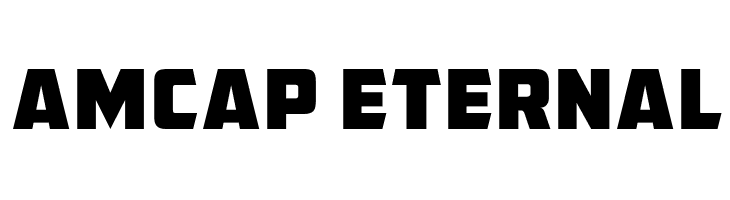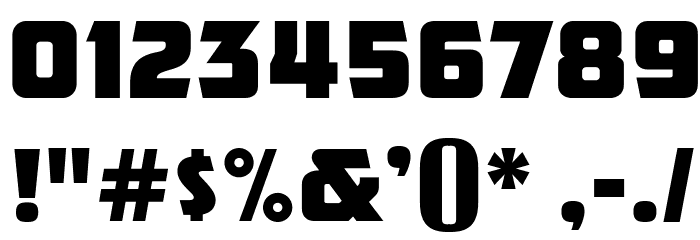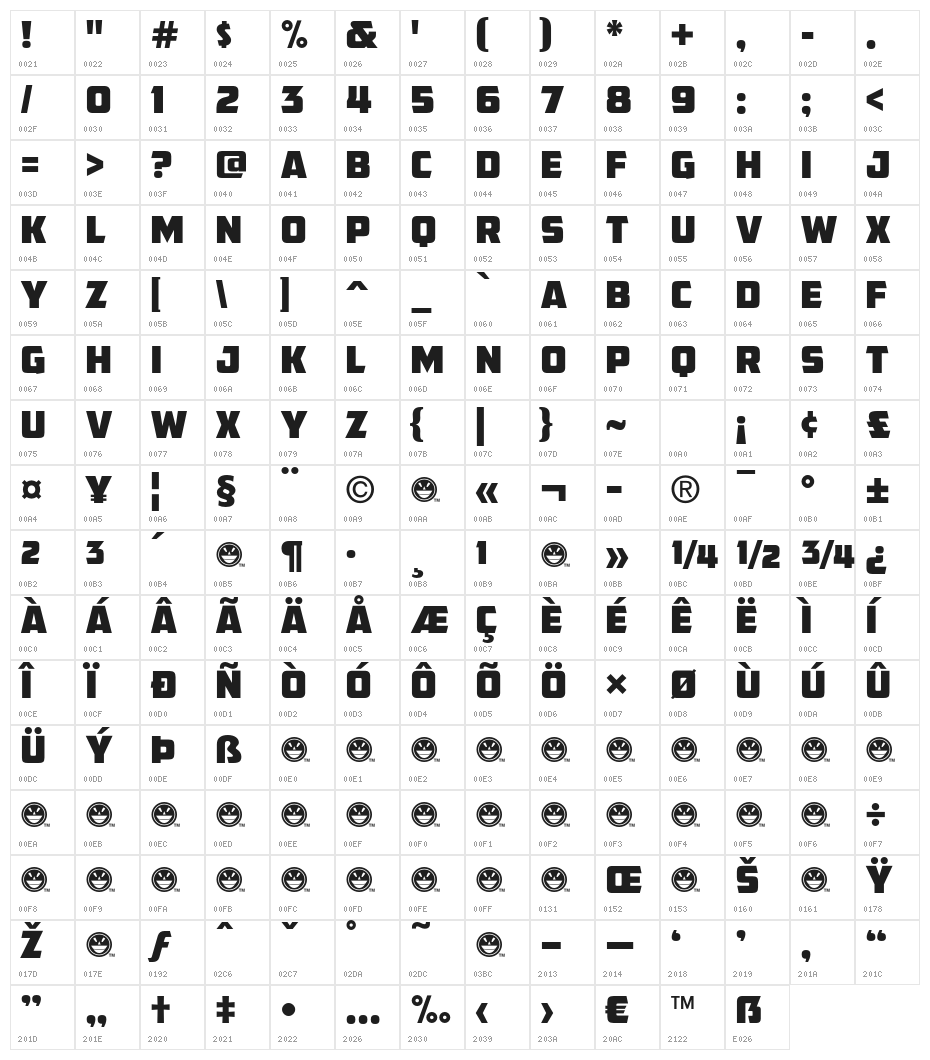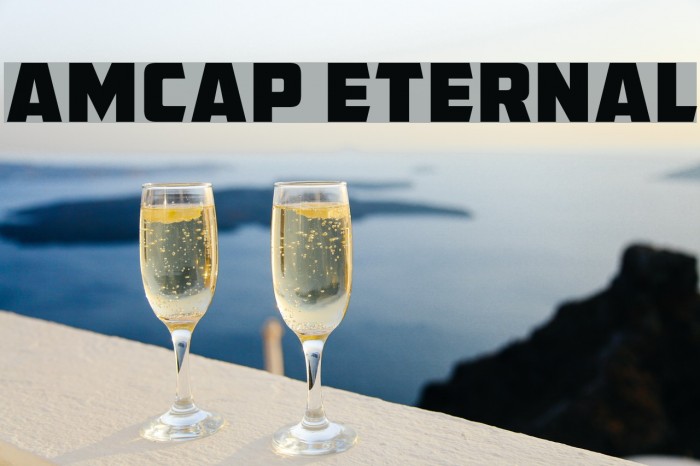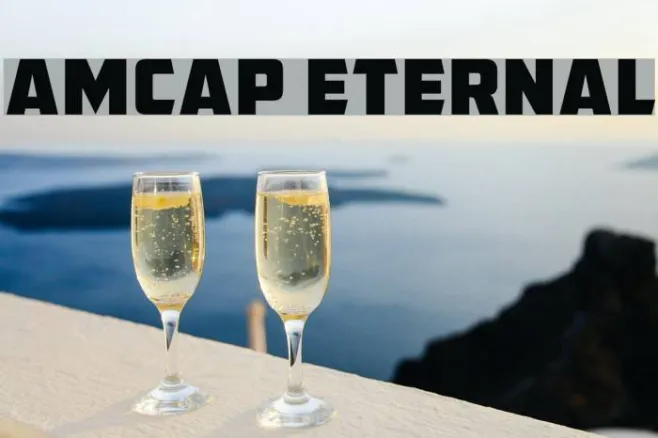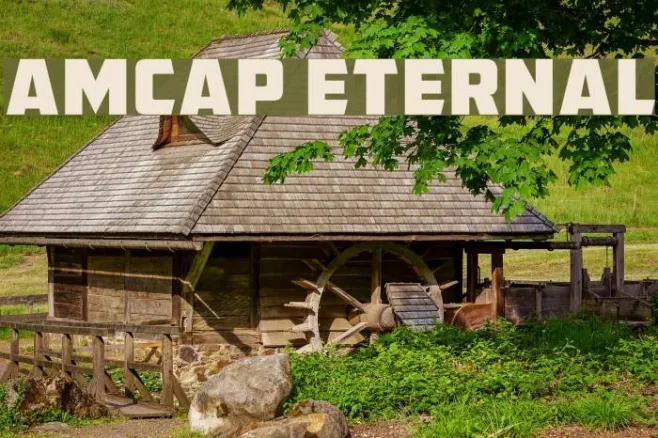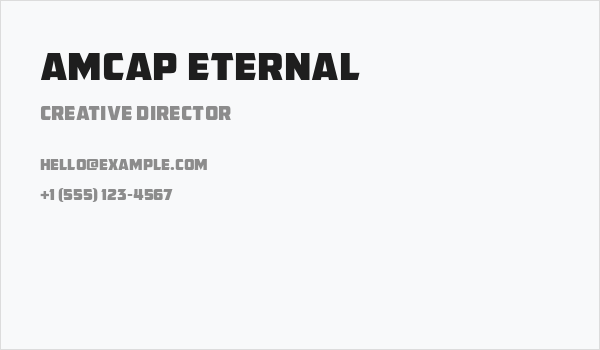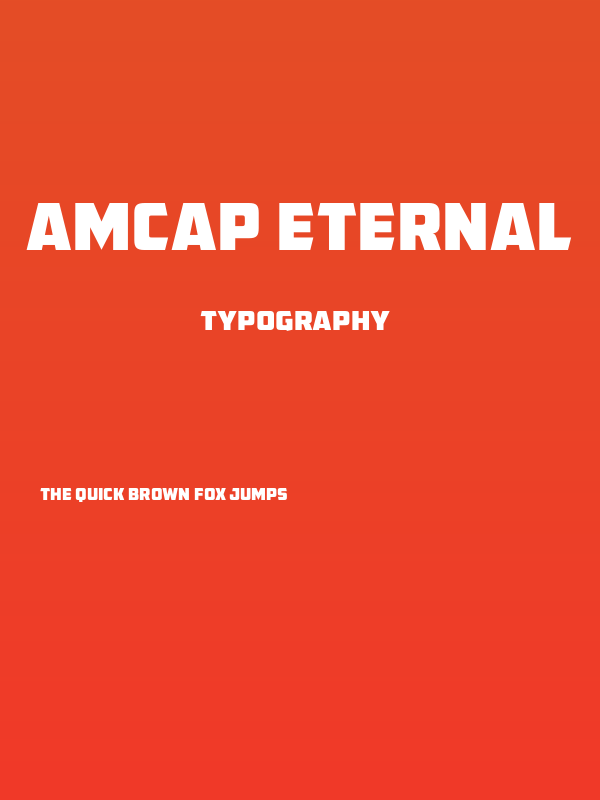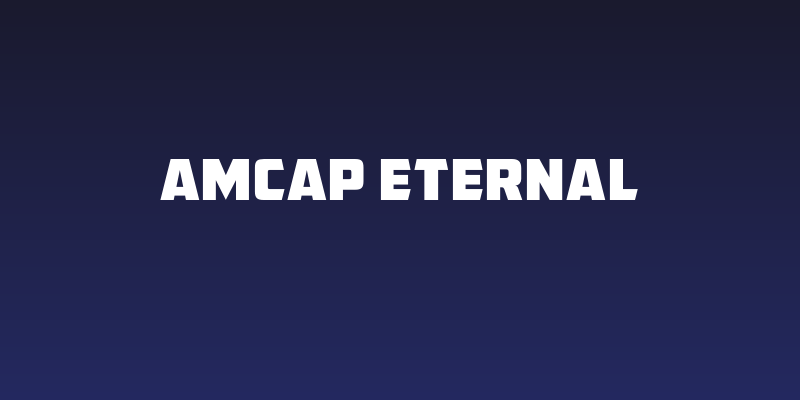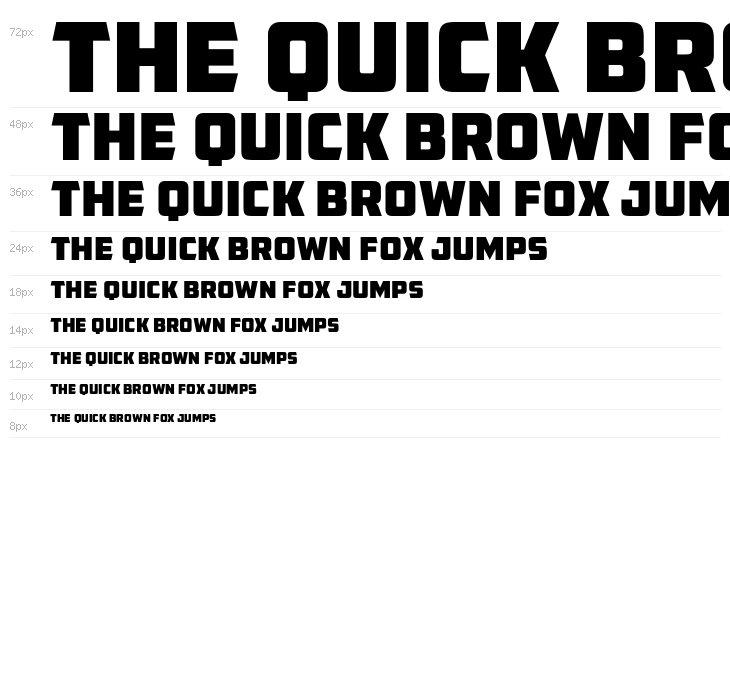
AMCAP Eternal Font
AMCAP Eternal Description
This font features a bold and impactful design, characterized by thick, block-like letters that convey strength and stability. The uppercase and lowercase letters maintain a consistent width, creating a uniform appearance. The numerals are equally robust, ensuring readability and prominence. Special characters are designed with the same boldness, making them stand out effectively. The overall style is modern and assertive, suitable for projects that require a strong visual presence.
| Proposed Projects | Ideal for headlines, posters, logos, and branding materials that require a strong and impactful visual style. |